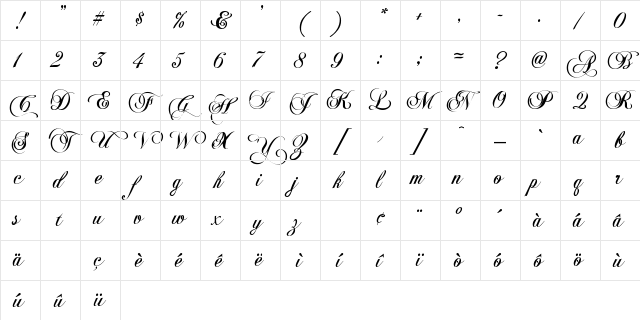
KB ChopinScript Regular Free Font
KB ChopinScript Regular
Design Context for KB ChopinScript
KB ChopinScript flows with the natural rhythm of handwritten lettering, making it ideal for designs that call for warmth and personal expression.
Font Pairing: Combine KB ChopinScript with a simple geometric sans for maximum contrast - the tension between flowing curves and clean structure is a classic typographic pairing.
Pro Tip: Use KB ChopinScript for short runs of text - names, titles, or taglines. Extended body copy in script faces tires the eye quickly.